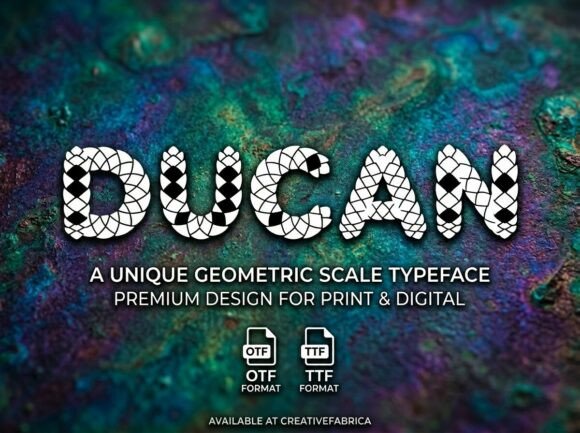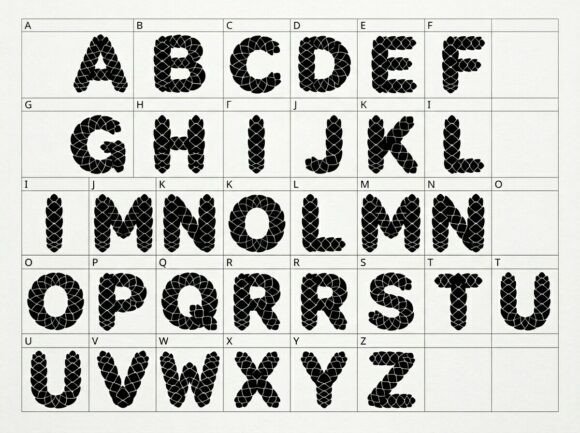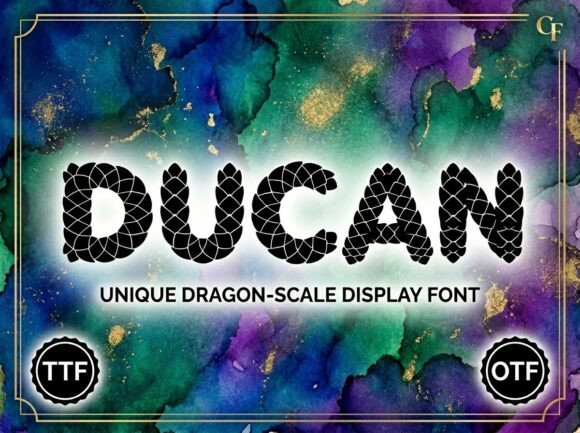
Unleash Legendary Power with Ducan Font
Are you ready to add a touch of mythical power to your designs? Look no further than the Ducan Font, a captivating display font inspired by the intricate beauty of mythical dragon scales. This massive typeface is meticulously constructed from overlapping, teardrop-shaped scale motifs, creating a high-impact visual of reptilian strength and fantasy craftsmanship.
The Inspiration Behind Ducan Font
The Ducan Font is inspired by the majestic beauty of dragon scales, often depicted in mythology and fantasy stories. Each character in this font is crafted to reflect the intricate patterns and textures found on these mythical creatures. The result is a font that exudes strength, power, and a sense of legendary presence.
Design Features of Ducan Font
The Ducan Font boasts a unique design that sets it apart from other display fonts. Here are some of its key features:
• Intricate Scale Motifs: Each character in the Ducan Font is constructed from overlapping, teardrop-shaped scale motifs, creating a complex and textured appearance.
• Solid Structural Stems: The font features solid structural stems that provide a sense of stability and strength, balancing out the intricate internal texture.
• Handcrafted Artisanal Grace: The Ducan Font delivers a sense of handcrafted artisanal grace, making it perfect for designs that require a touch of uniqueness and personality.
Use Cases for Ducan Font
The Ducan Font is an extraordinary choice for a variety of design projects, including:
• Fantasy Game Titles: Add a touch of mythical power to your game titles with the Ducan Font, perfect for games that require a sense of epic adventure and fantasy.
• Dragon-Themed Branding: Create a legendary brand identity with the Ducan Font, ideal for businesses that want to evoke the strength and power of dragons.
• Epic Book Covers: Make your book covers stand out with the Ducan Font, perfect for fantasy novels, epic stories, and mythology-inspired books.
• Unique Merchandise Design: Add a touch of mythical power to your merchandise designs, such as t-shirts, posters, and accessories, with the Ducan Font.
Why Choose Ducan Font?
So, why choose the Ducan Font for your design projects? Here are some compelling reasons:
• Legendary Presence: The Ducan Font ensures your brand stands out with a legendary presence, making it perfect for businesses and designers who want to make a statement.
• High-Impact Visual: The font’s intricate scale motifs and solid structural stems create a high-impact visual that grabs attention and inspires imagination.
• Versatility: The Ducan Font is versatile and can be used for a variety of design projects, from fantasy game titles to epic book covers.
In conclusion, the Ducan Font is a captivating display font that unleashes legendary power and mythical strength to your designs. With its intricate scale motifs, solid structural stems, and handcrafted artisanal grace, this font is perfect for designers and crafters who want to add a touch of fantasy and adventure to their projects. Whether you’re creating fantasy game titles, dragon-themed branding, epic book covers, or unique merchandise designs, the Ducan Font is an extraordinary choice that ensures your brand stands out with a legendary presence.